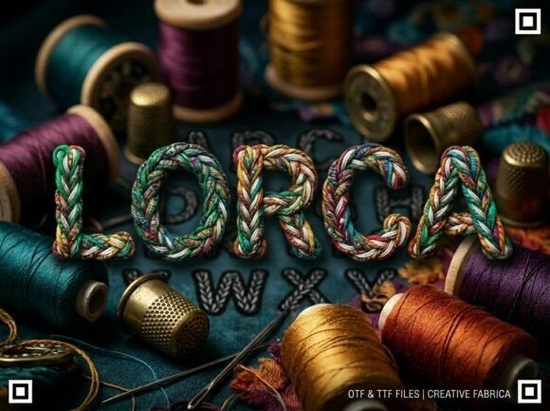
Finding the right typeface for a project can often feel like searching for a needle in a haystack. You want something that grabs attention immediately but still looks professional. This is where Lorca Font comes into play. It is a stunning decorative display font designed to be the center of attention. Featuring unique artistic elements and a strong visual personality, this font is perfect for creators who want to break away from the ordinary. Whether you are designing a logo or a bold headline, this typeface offers the impact you need without sacrificing quality.
What makes this typeface different from others?
Many display fonts try to be too many things at once. They end up looking messy or hard to read. This specific typeface avoids that trap by focusing on high-impact visuals. It is an ALL-CAPS display typeface, meaning it does not include lowercase letters. This might sound limiting, but it is actually a strength. It forces you to use the font where it matters most: headlines, logos, and decorative initials. Every letter is treated as a work of art.
The design includes unique artistic elements that give it a strong visual personality. It is versatile enough for bold headlines, artistic logos, and creative packaging, while maintaining a professional and polished finish. When you need something that stands out on a shelf or a screen, this style delivers. It helps your brand look established and creative simultaneously.
Where should you use this font?
Because this is a display font, it works best in large sizes. You should not use it for long paragraphs of text. Instead, focus on areas where you need to catch the eye quickly. Here are some of the best use cases:
- Product Packaging: Make your product pop on the shelf with bold lettering.
- Logo Design: Create a memorable brand mark that people recognize instantly.
- Posters and Flyers: Ensure your event or sale gets noticed from a distance.
- Social Media Graphics: Stop the scroll with eye-catching text overlays.
- T-Shirt Designs: Perfect for print-on-demand sellers looking for unique typography.
Small businesses and creative hobbyists will find this particularly useful for branding materials. It adds a layer of sophistication that standard system fonts cannot match. If you are working on a project that needs to feel special, this is a solid choice.
Quick Design Checklist
To get the best results with this typeface, follow these simple steps:
- Check the case: Remember this is uppercase only.
- Pair wisely: Use a simple sans-serif font for body text to balance the bold header.
- Test readability: Make sure the decorative elements don't make the text hard to read at smaller sizes.